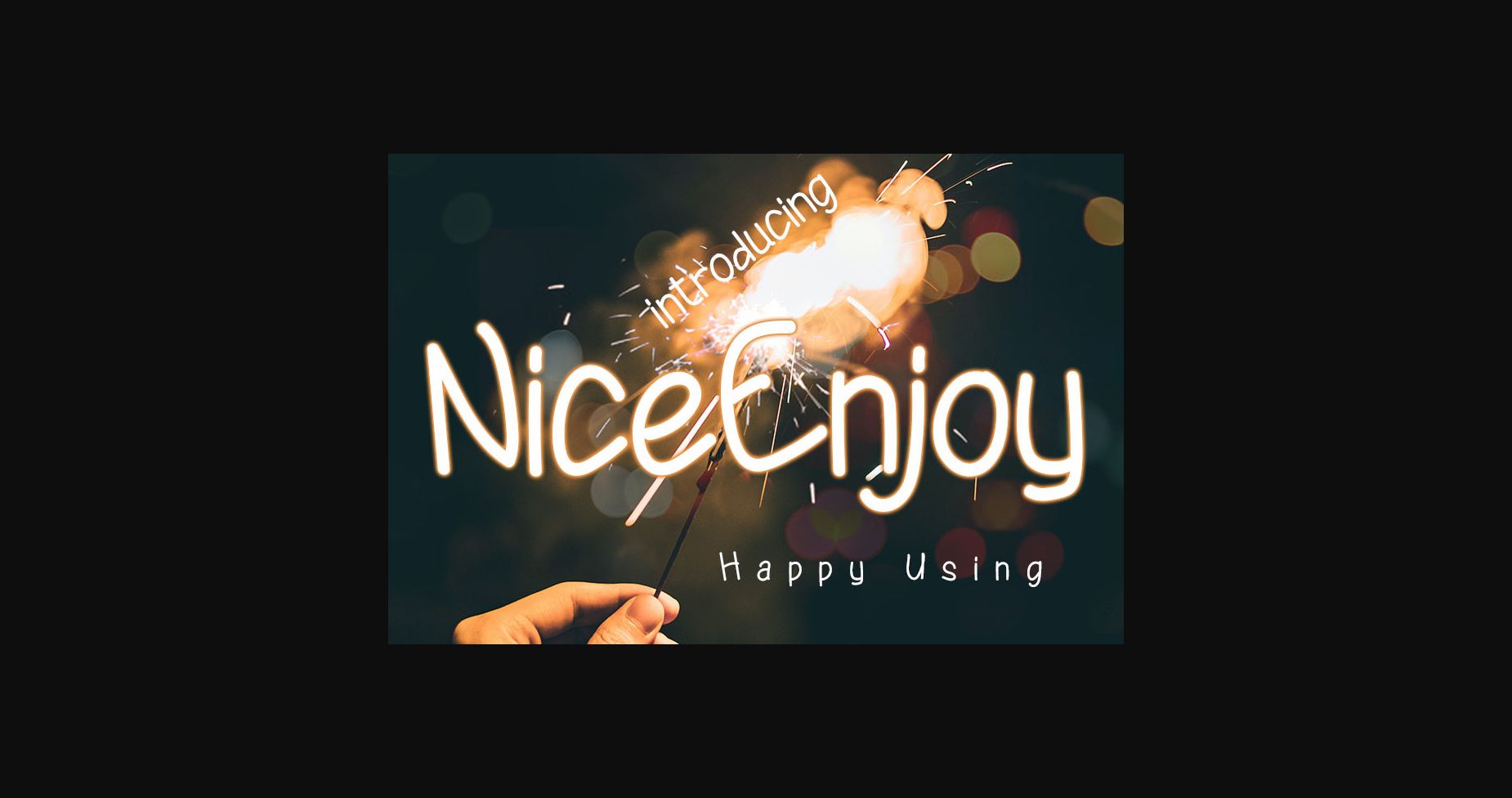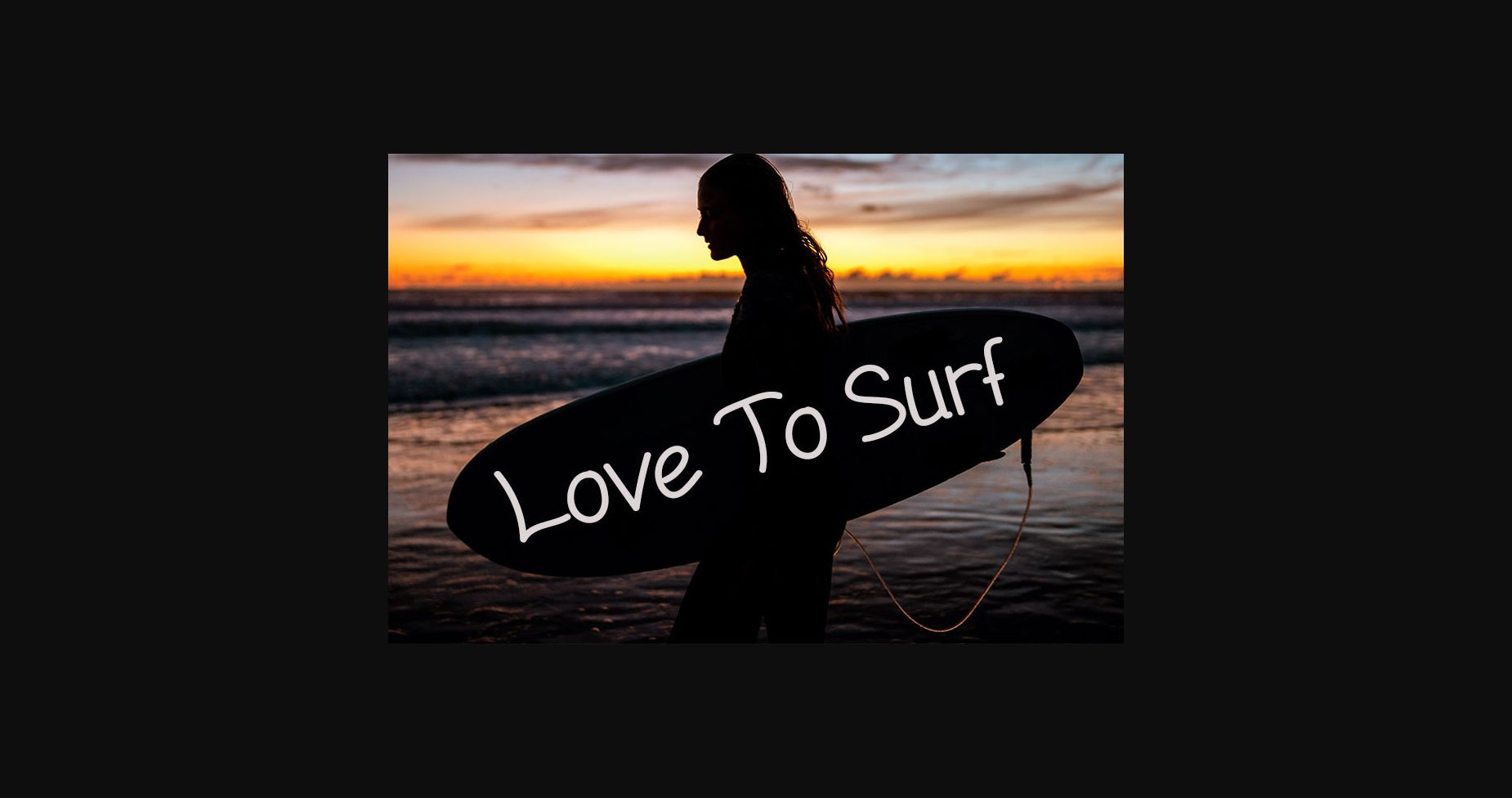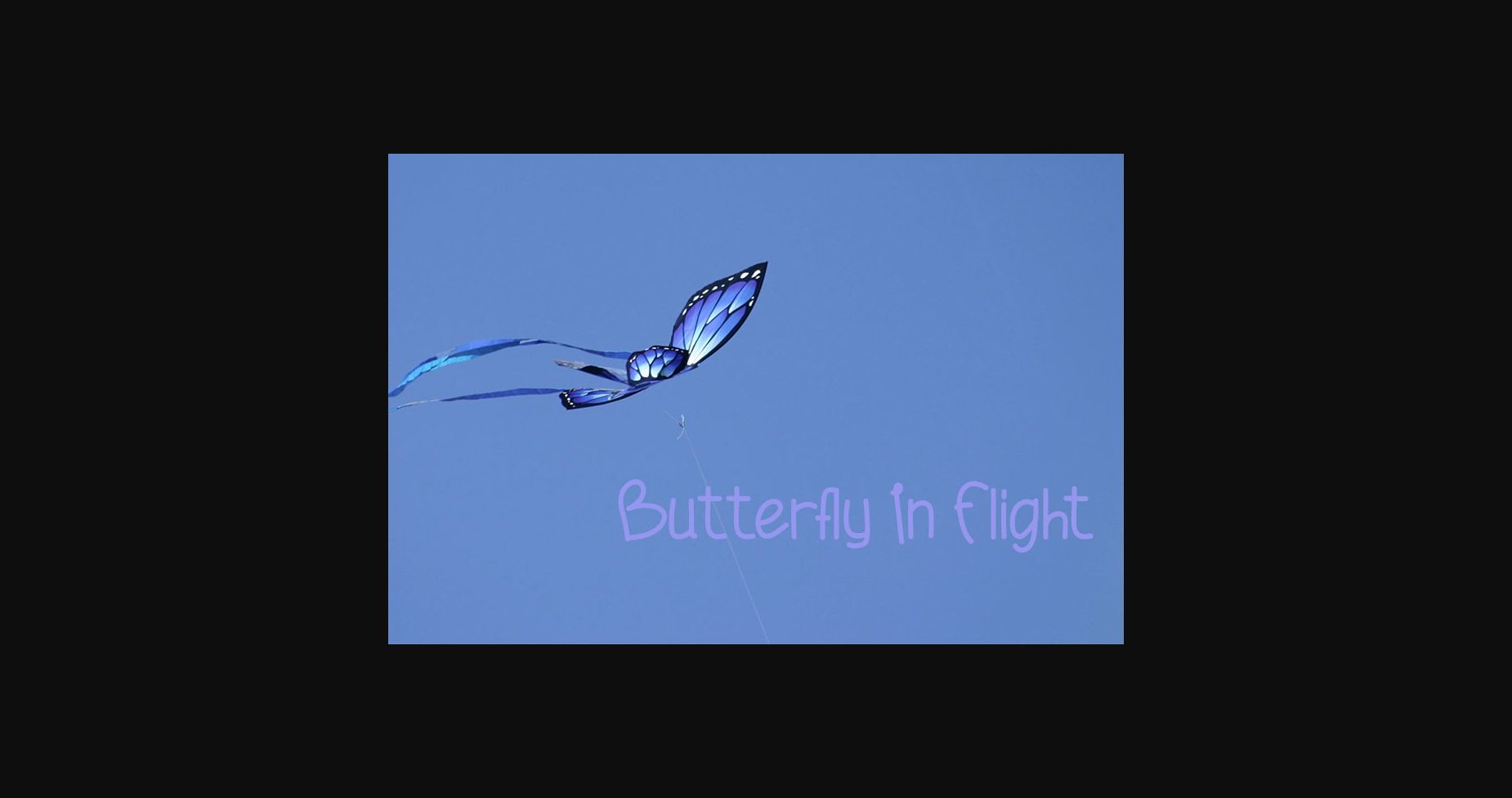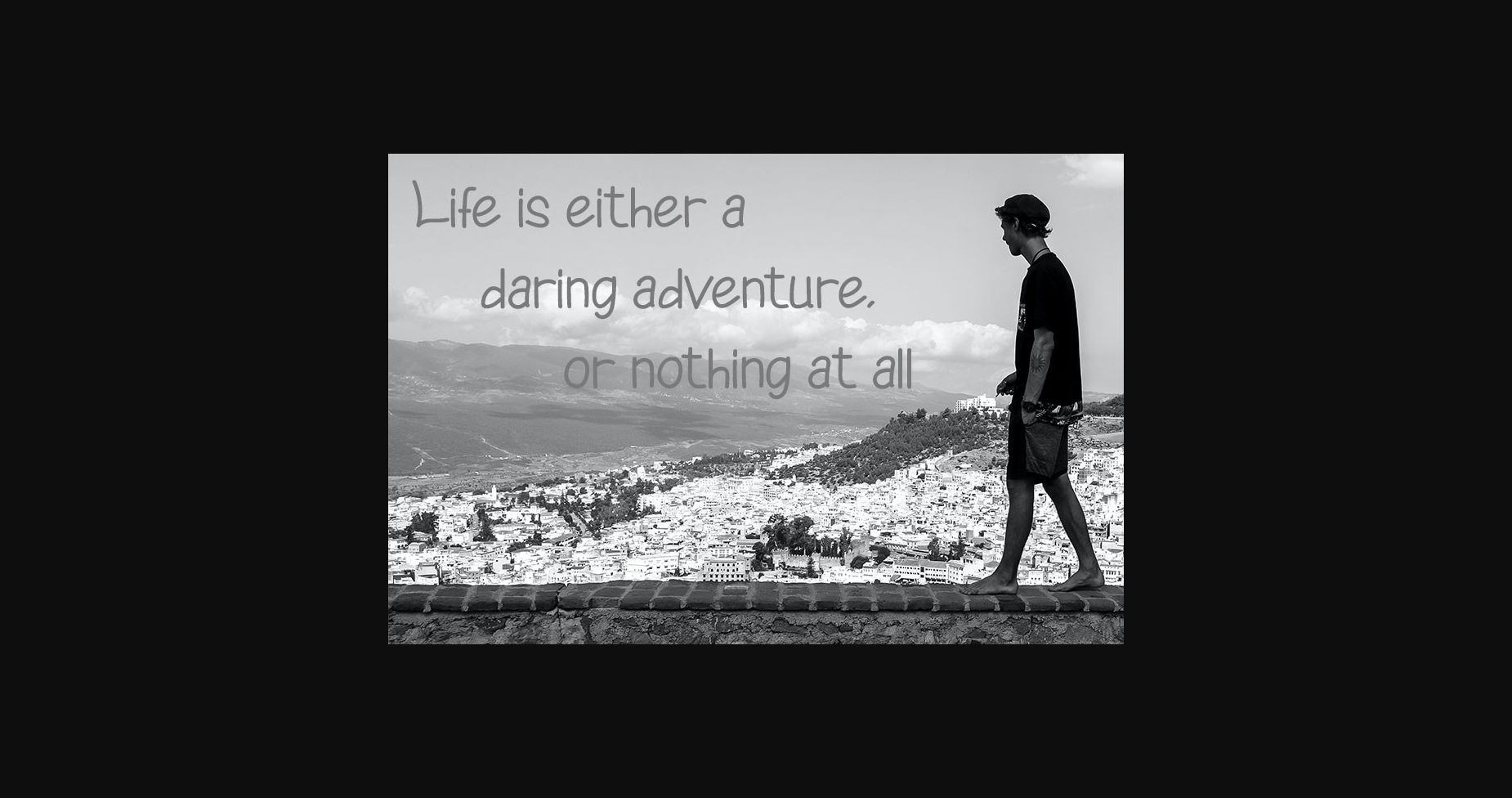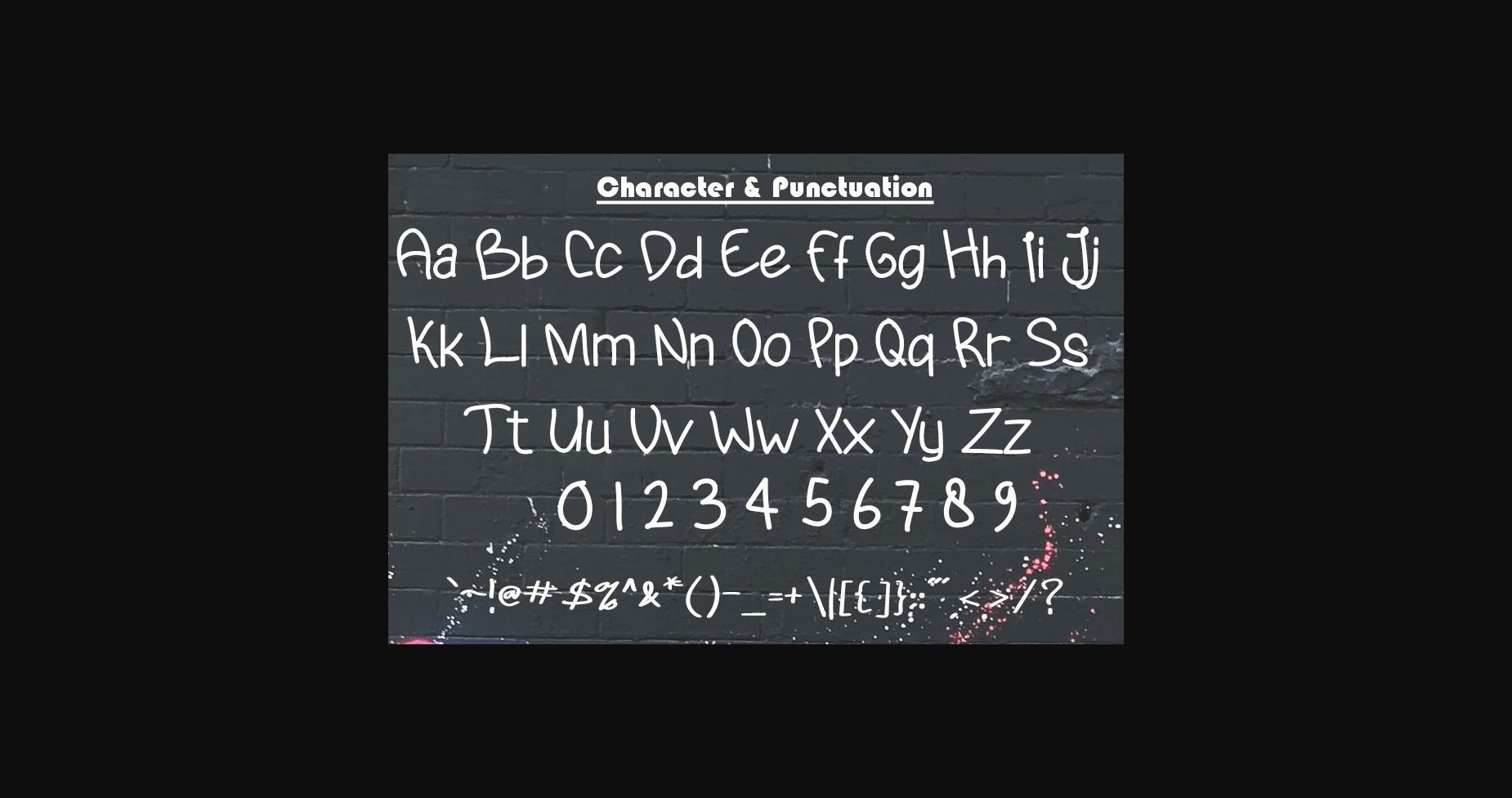
Nice Enjoy is an incredibly unique sans serif font. Remarkably stylish and playful, this font is guaranteed to take your beautiful creations to the highest level!